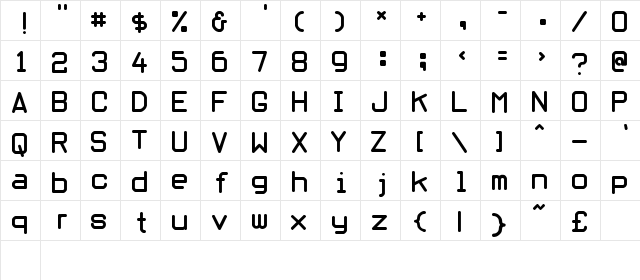
Oblivious font Regular
Oblivious font is a composed and adaptable typeface that performs quietly and consistently across a wide range of design contexts.